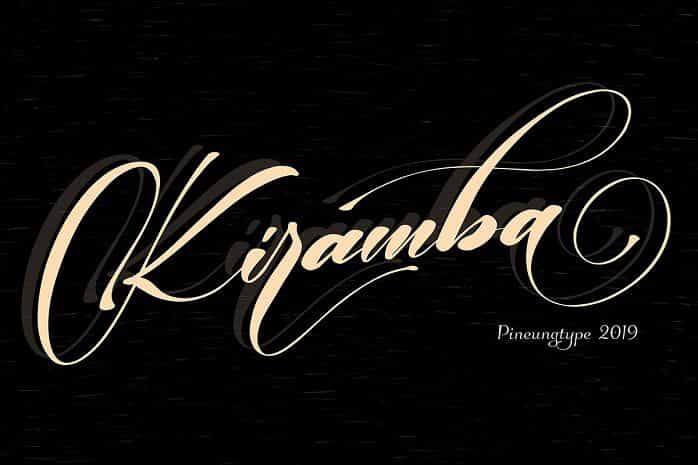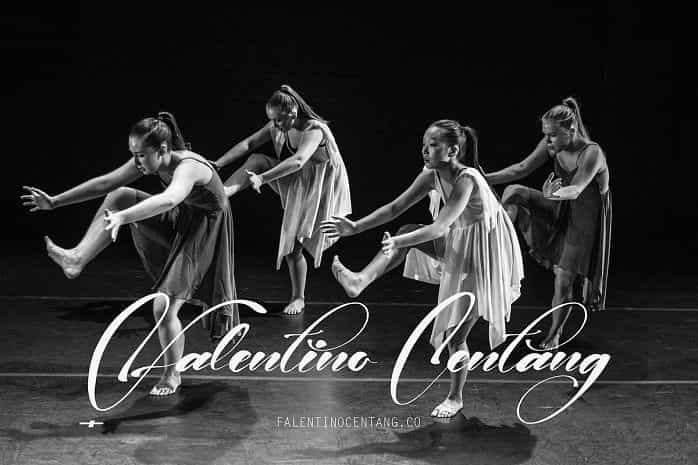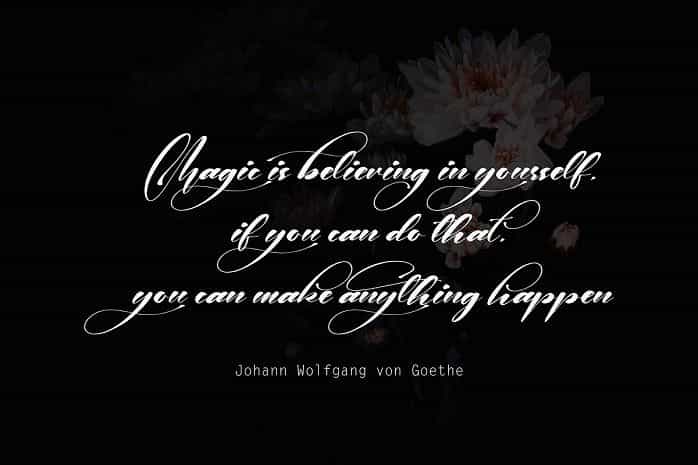
Introducing Kiramba Font. It was created by Pineungtype, which is a premium font that you can find on creativemarket and it was fantastic. Now, it is free for download today. Kiramba font with modern calligraphy style, this font will perfect for many different project ex: The quotes, logo, blog header, poster, branding, fashion design and apparel etc are used as the elements of stationery for different purposes.